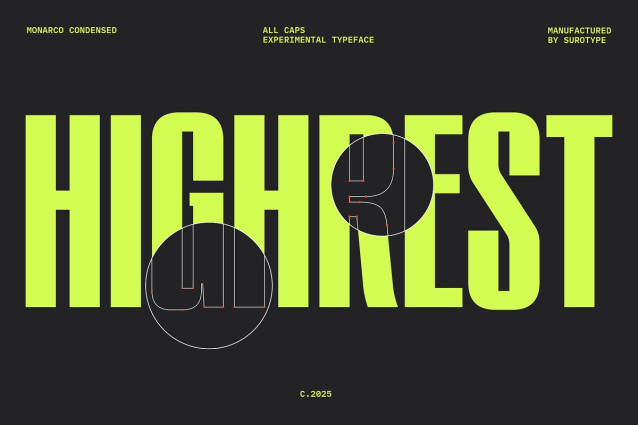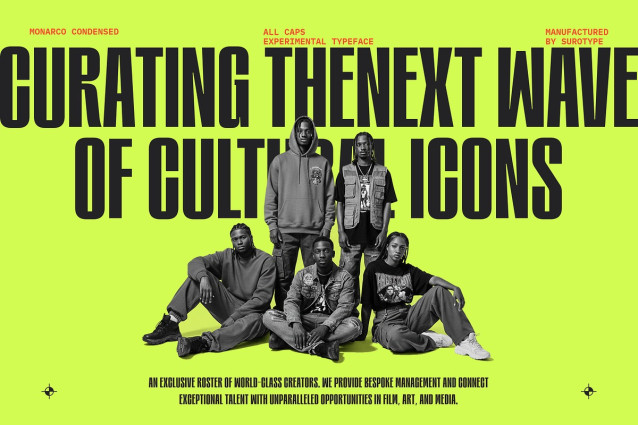
Monarco Font
Monarco Font is a typeface designed for absolute visual dominance. This Condensed Bold Experimental font was born from the need for instant, uncompromising visual impact. With characters that are aggressively condensed and an exaggerated boldness, Monarco creates dense text blocks with incredible visual weight.